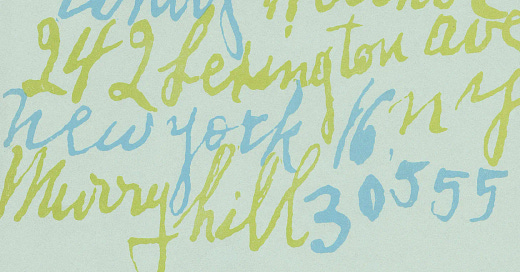
Andy Warhol’s personal letterhead was half-filled with the handwriting of his mother, Julia Warhola—an award-winning artist in her own right. According to the Annual of Advertising and Editorial Art and Design, this sheet of stationery, and the accompanying business card and envelope, was art-directed by graphic designer Reid Miles.